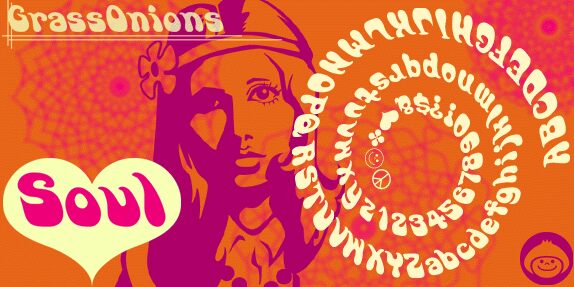
GoSoul
Go Soul font by Grass Onions is a free groovy display font with a thick, inky presence that feels like it’s been poured onto the page. Each letter swells and slouches with a lava-lamp softness, creating a rolling rhythm that instantly channels late‑60s psychedelia and underground gig posters. The tight, blobby forms grab attention in a single word, so short phrases and bold titles really sing.
Using Go Soul as a headline typeface, you can bring swagger to music flyers, festival branding, zines, retro merch, party invitations, and bold social graphics. The heavy silhouettes stay legible at large sizes while still feeling wild and organic, making this free font shine in logo lockups and wordmarks. For balance, pair Go Soul with a clean geometric sans in small text and let the groovy shapes handle the loud, expressive moments.